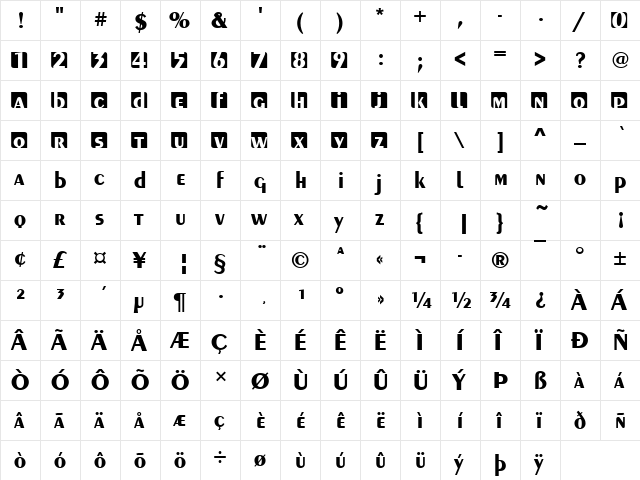
PeignotIniDBol Regular
Design Context for PeignotIniDBol Typeface
PeignotIniDBol offers clean, dependable letterforms without strong stylistic allegiance, making it a practical choice for designers who need flexibility.